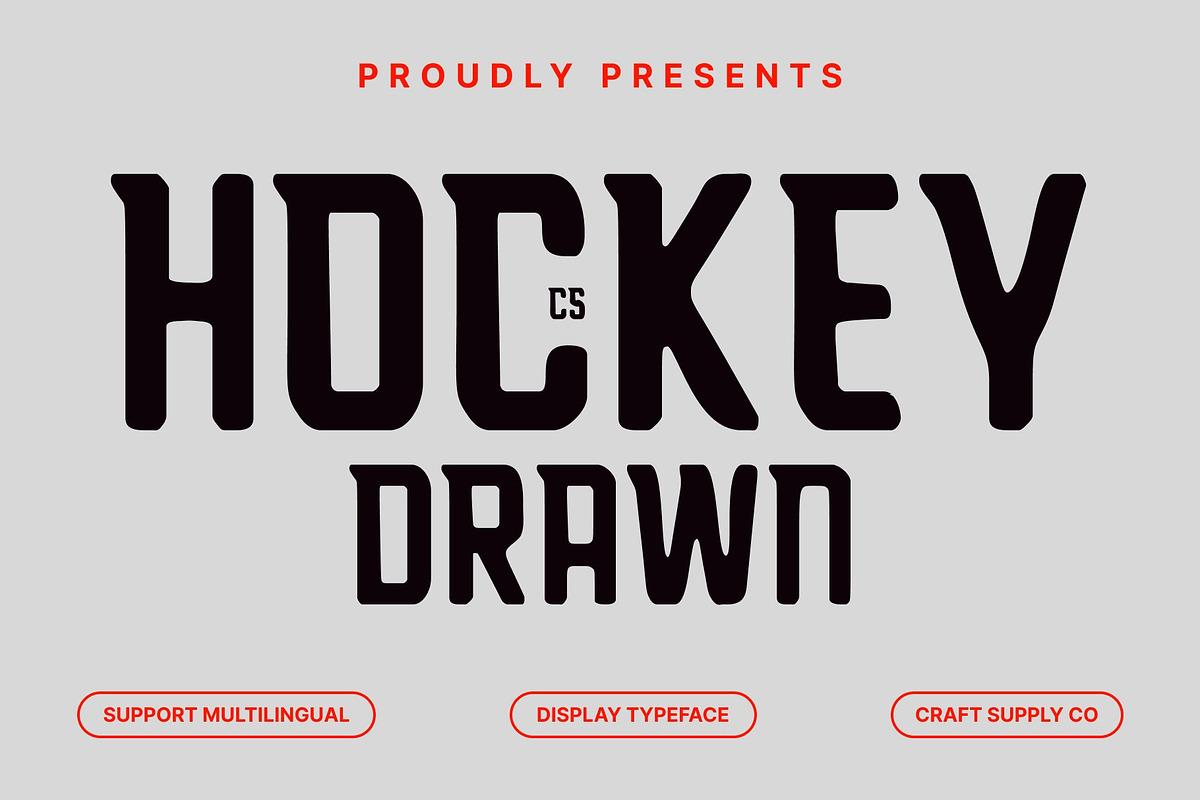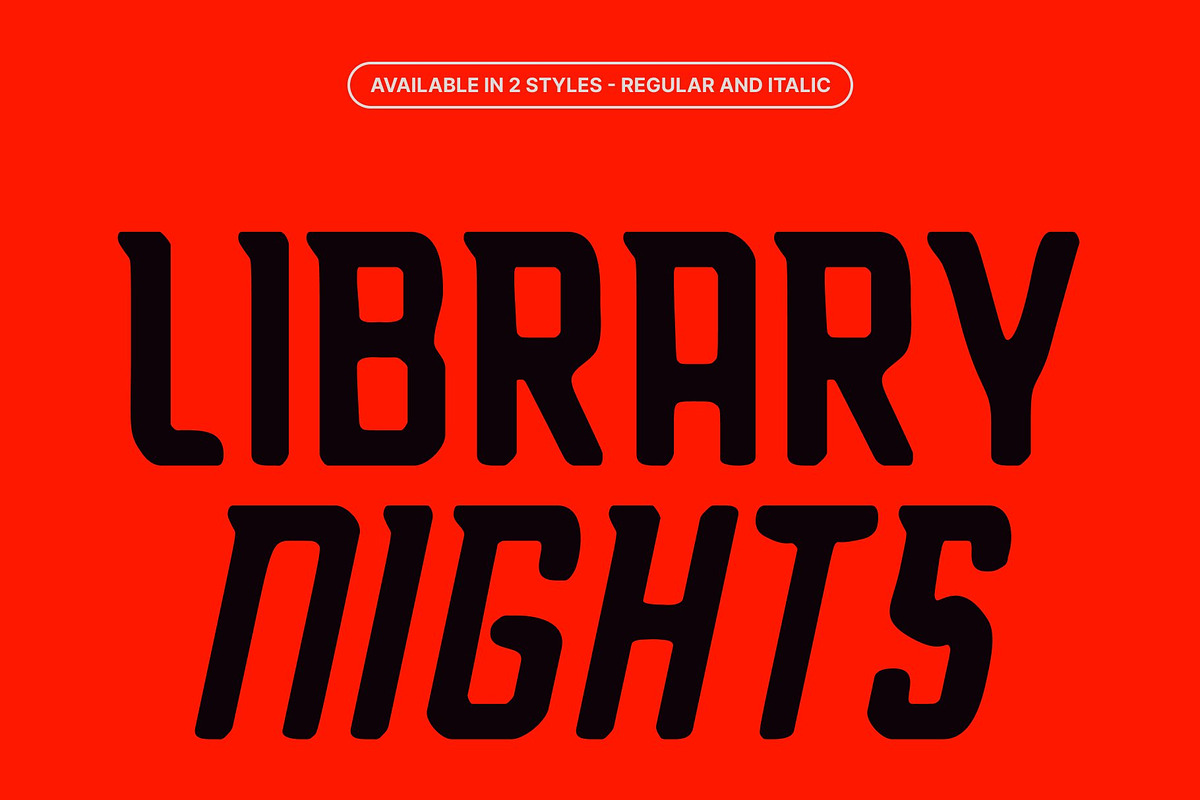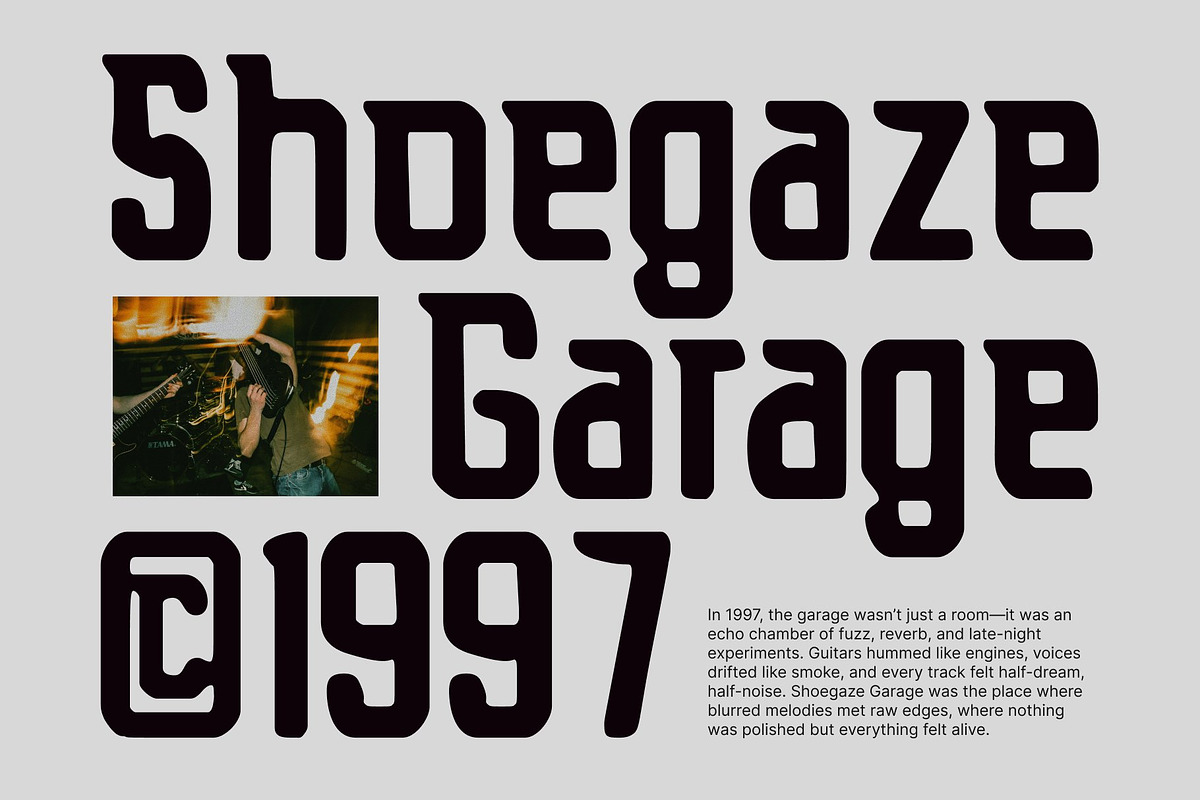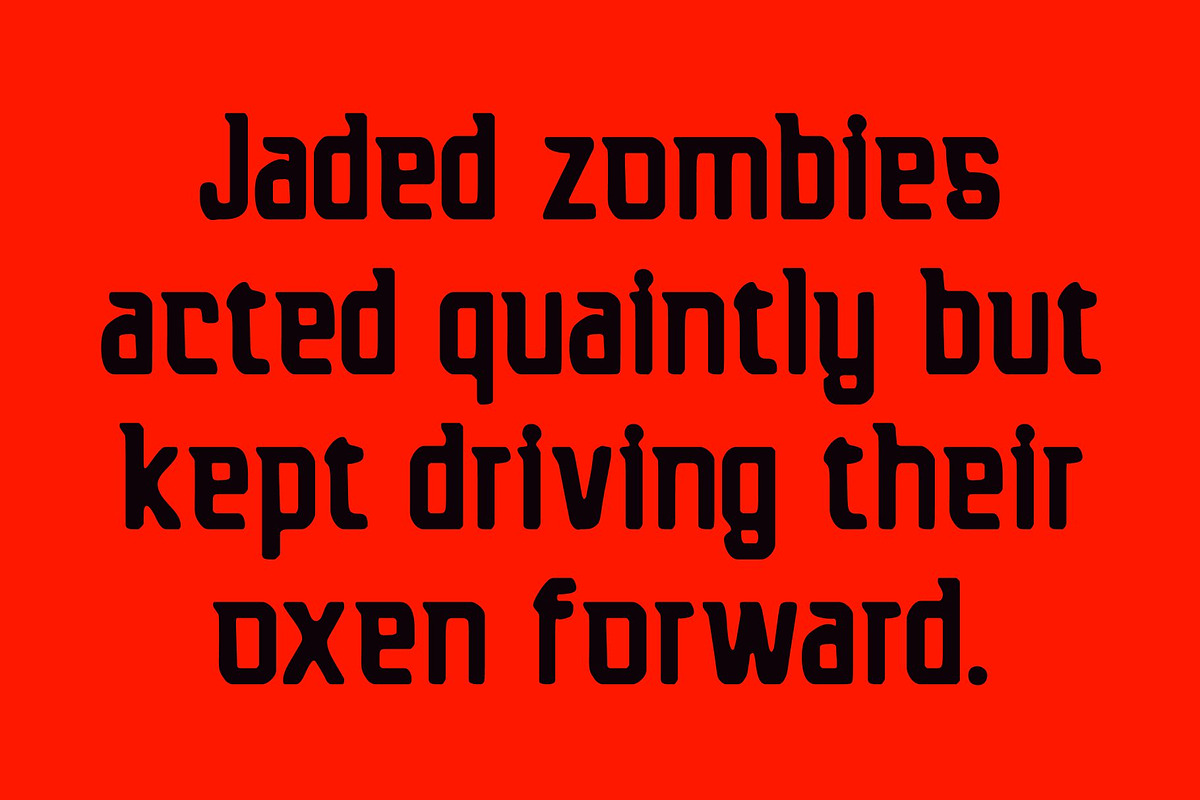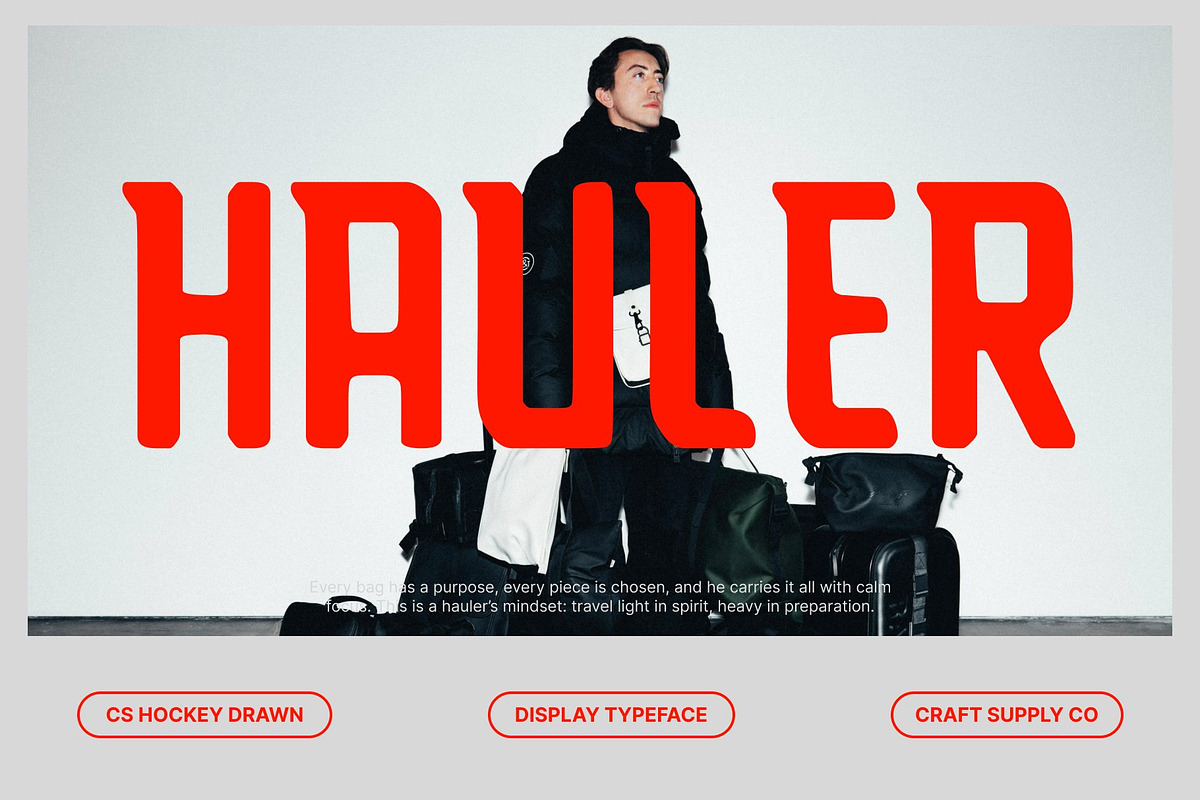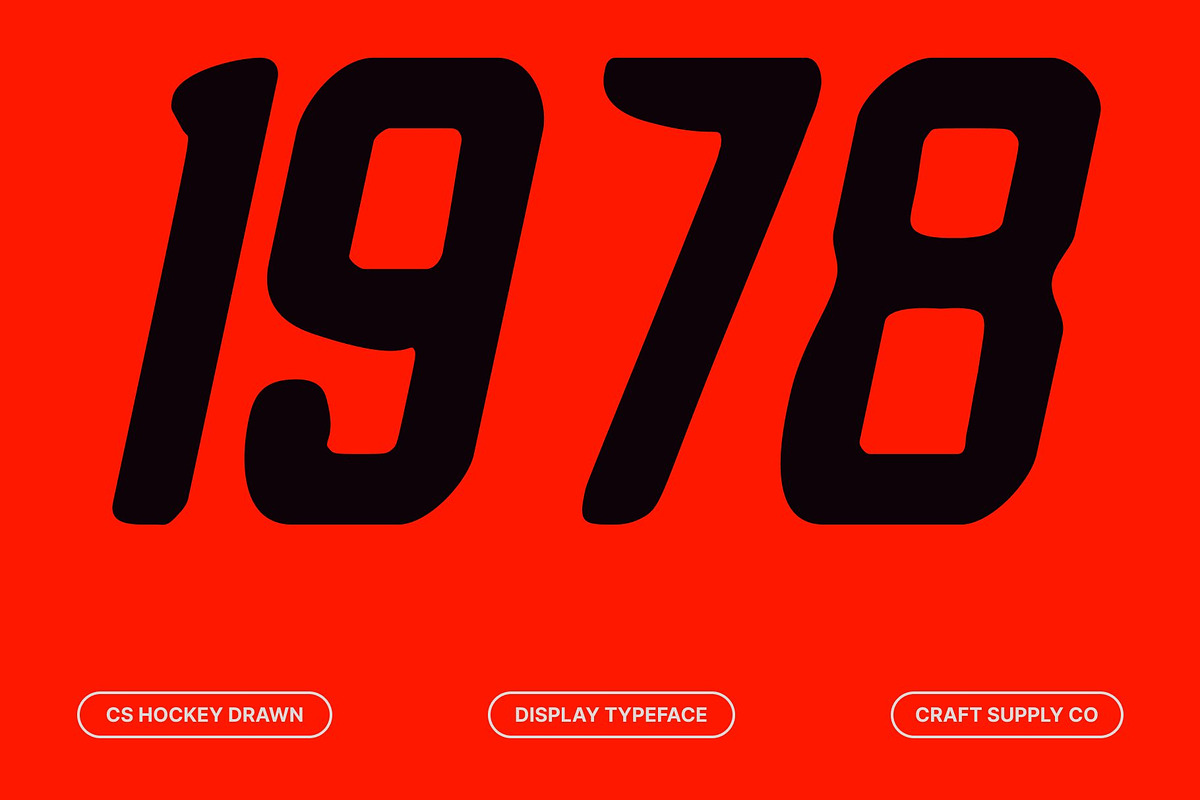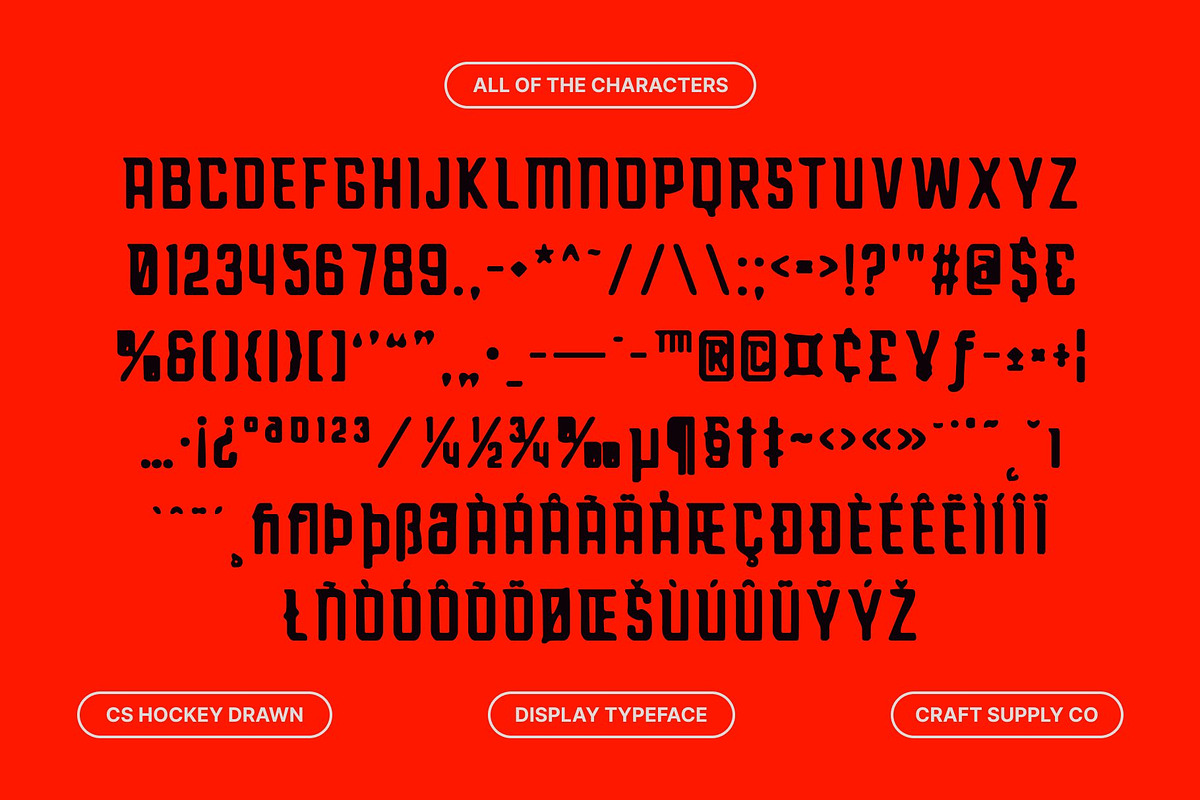
CS Hockey Drawn
CS Hockey Drawn – Techno Inspired Sans Serif with Modern Energy
Techno Shapes with Modern Industrial Energy This is a bold techno-inspired sans serif font crafted to deliver a strong sense of modern energy and industrial attitude. Its sharp geometry blends seamlessly with smooth contours, creating a dynamic balance between futuristic design and approachable style. Every letter is built to command attention, making this font ideal for bold visual statements in branding, logo design, and display projects.
Hand-Drawn Texture for Soft, Expressive Character What sets this font apart is its unique drawn effect. The handcrafted texture softens the otherwise rigid techno structure, giving each character a warm and expressive personality. This subtle irregularity adds depth, charm, and a human touch, transforming the font into something visually striking yet inviting.
Bold Construction for Impactful Displays With its bold weight and strong proportions, this font delivers maximum impact in headlines, posters, promotional graphics, and digital art. The font’s confident form enhances readability while maintaining a futuristic edge. Whether used for eye-catching titles or standout branding elements, its presence ensures your design remains memorable and visually powerful.
Versatile for Branding, Posters, and Creative Media This font excels across a variety of modern and industrial-themed design needs. Its techno influence makes it perfect for sports branding, gaming visuals, apparel design, tech company logos, and high-energy poster compositions.